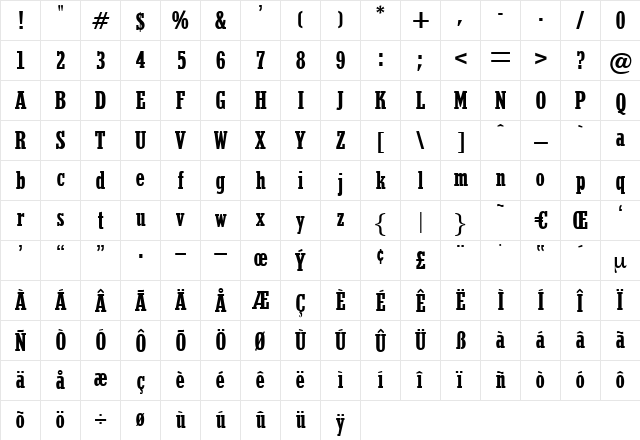
QuarterBold Regular Font Preview
QuarterBold Regular
Design Context for QuarterBold Typeface
QuarterBold offers clean, dependable letterforms without strong stylistic allegiance, making it a practical choice for designers who need flexibility. Its bold stroke weight gives it real presence on the page.